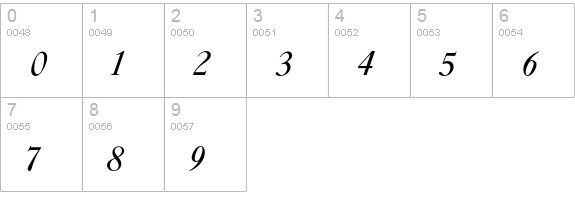
Caslon Italic with Swashes Std Font Details
Caslon Italic with Swashes Std is a distinctive, italic variant in the Caslon typeface family \xE2\x80\x94 well suited to design and typography projects.
Caslon Italic with Swashes Std font is a beautifully elegant and versatile typeface that exudes sophistication and charm. The delicate swashes add a touch of flair and grace to the text, making it perfect for invitations, wedding stationery, and other special occasions. The flowing curves and graceful lines of the italic style create a sense of timeless elegance that is sure to make any design stand out. The best part is that this exquisite font is available for free download at FontsMarket.com. Whether you're a designer looking to add a touch of elegance to your projects or someone looking to create stunning invitations or personalized stationery, Caslon Italic with Swashes Std font is the perfect choice. Download it today and elevate your designs with this gorgeous and versatile typeface.